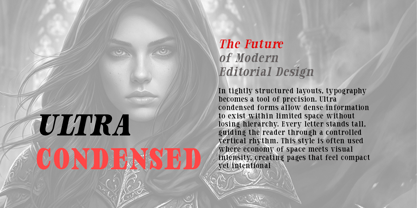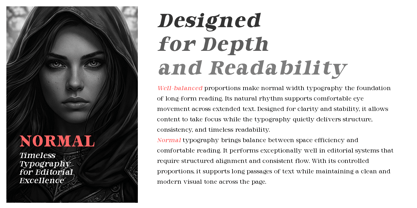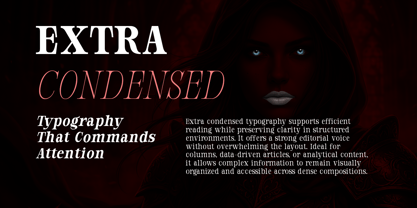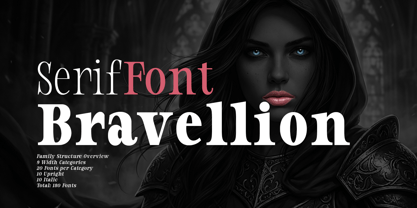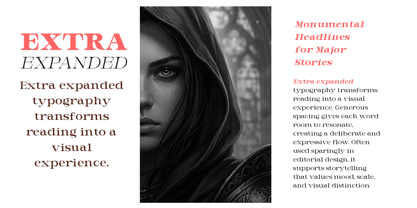
Bravellion
by Groen Studio
The Bravellion Font Family was designed by Roiyani Teungku and published by Groen Studio. Bravellion contains 180 styles and family package options. More about this family
BRAVELLION — Serif Typeface Family Bravellion is a refined contemporary serif typeface built on precision, elegance, and structural flexibility. Designed as a full superfamily with an extensive width system, Bravellion adapts seamlessly from compact editorial layouts to expansive display compositions. Its balanced contrast, sculpted terminals, and confident proportions make it equally powerful in print and digital environments. Each width category includes 10 Upright styles and 10 Italic styles, providing a complete typographic range for hierarchy, expression, and visual rhythm. 1. Ultra Condensed — 20 Fonts The Ultra Condensed collection delivers maximum vertical presence with minimal horizontal space. Engineered for dense typography, dramatic headlines, and space-restricted layouts, it creates striking impact while maintaining legibility. Ideal for editorial columns, poster typography, and bold typographic statements where economy of space is essential. 2. Extra Condensed — 20 Fonts Extra Condensed offers strong compression with slightly more breathing room than Ultra Condensed. It balances density with readability, making it perfect for subheadings, packaging, and modern branding systems that demand compact yet clear typography. 3. Condensed — 20 Fonts The Condensed series provides a versatile narrow structure that remains highly readable across various sizes. Designed for efficient text setting, it excels in magazines, advertising, and interface layouts where structured alignment and typographic control are key. 4. Semi Condensed — 20 Fonts Semi Condensed softens the narrow structure while preserving spatial efficiency. It offers a comfortable reading experience with a subtle editorial tone, ideal for professional layouts, corporate publications, and contemporary typography systems. 5. Normal Width — 20 Fonts The core of the Bravellion family. Perfectly balanced proportions deliver optimal readability and timeless elegance. This is the most versatile set, suitable for body text, long-form reading, branding, and high-quality print composition. 6. Semi Expanded — 20 Fonts Semi Expanded introduces a more open rhythm while maintaining structural harmony. It enhances clarity and visual presence without becoming overly wide, making it excellent for premium branding, refined headings, and elegant editorial design. 7. Expanded — 20 Fonts Expanded styles emphasize openness and sophistication. With broader proportions and graceful spacing, this category is designed for confident headlines, luxury identity work, and expressive typographic layouts that require visual prominence. 8. Extra Expanded — 20 Fonts Extra Expanded delivers dramatic horizontal spread with refined balance. It commands attention in large-scale typography, display settings, and contemporary design where spacious letterforms create a bold visual voice. 9. Ultra Expanded — 20 Fonts The widest expression of Bravellion. Ultra Expanded transforms typography into architectural form — expansive, commanding, and highly expressive. Ideal for monumental headlines, artistic compositions, and high-impact visual communication. Family Structure Overview 9 Width Categories 20 Fonts per Category 10 Upright 10 Italic Total: 180 Fonts Design Character Bravellion combines classical serif sophistication with modern typographic engineering. Its wide spectrum of widths allows designers to control density, rhythm, and spatial expression with precision — all within a unified aesthetic system.